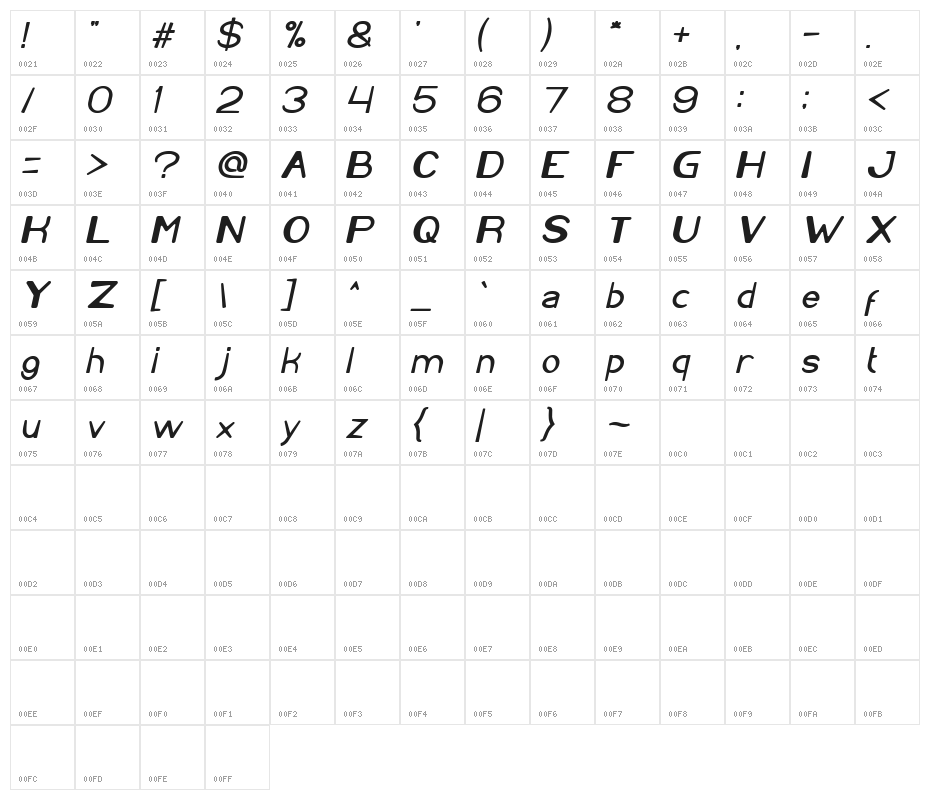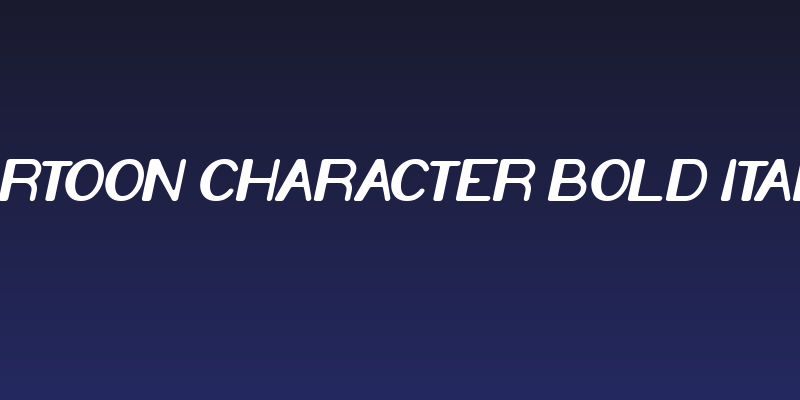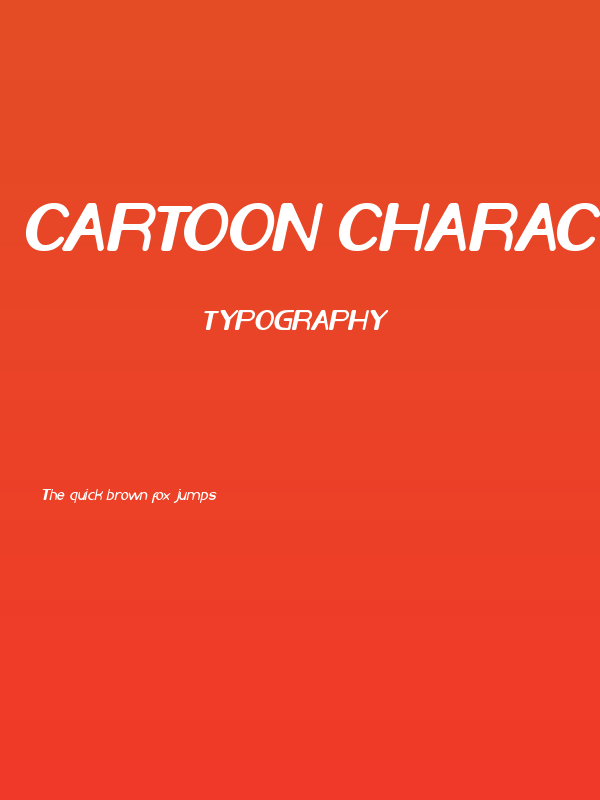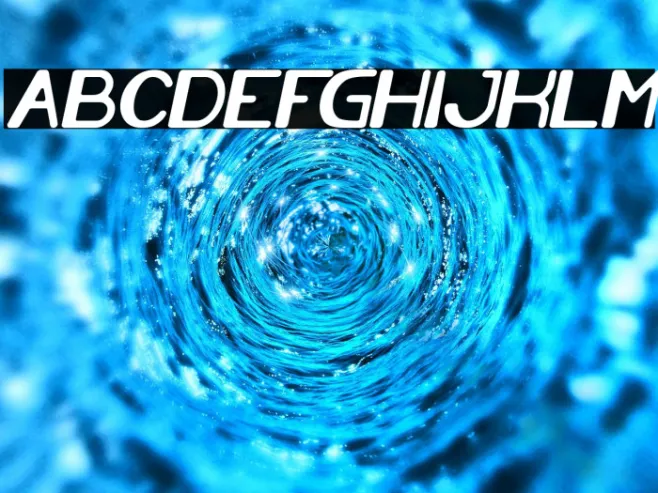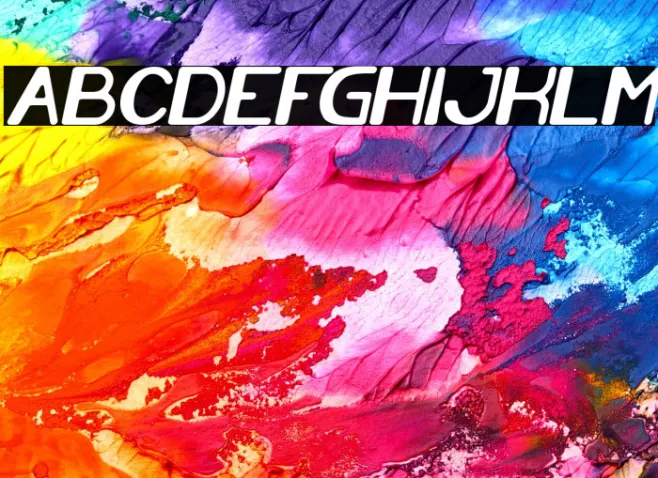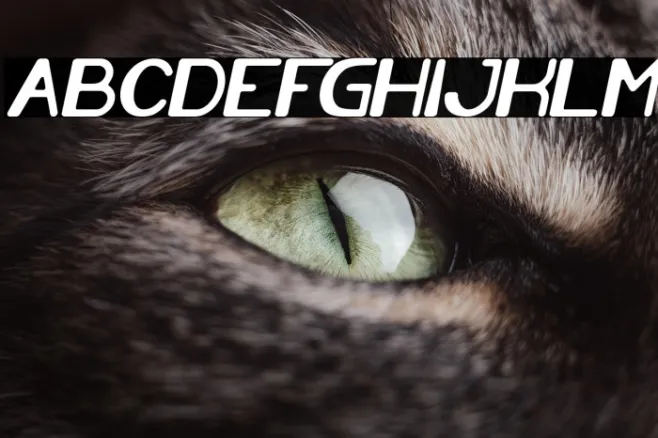
Cartoon Character Bold Italic Font
Cartoon Character Bold Italic Description
This playful and dynamic font features bold, italicized characters with a smooth, rounded appearance. The letters are slightly slanted, giving a sense of motion and energy. The strokes are consistent in thickness, providing a uniform look across all characters. The font includes both uppercase and lowercase letters, numerals, and a variety of special characters. Its whimsical style makes it ideal for projects that require a fun and engaging visual element.
| Proposed Projects | Ideal for children's books, comic strips, playful branding, and animated graphics. |